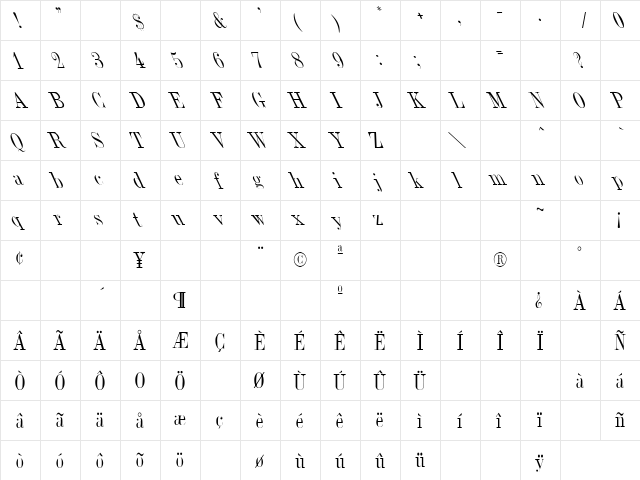
Dubiel ( Plain) Thin Lefty Regular
Design Context for Dubiel ( Plain) Thin Lefty Typeface
Dubiel ( Plain) Thin Lefty offers clean, dependable letterforms without strong stylistic allegiance, making it a practical choice for designers who need flexibility. Its slender proportions lend an understated elegance to any composition.